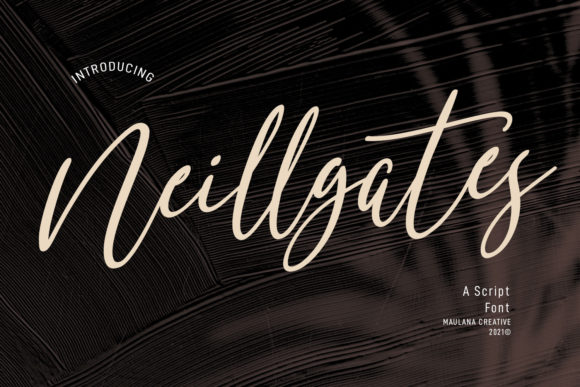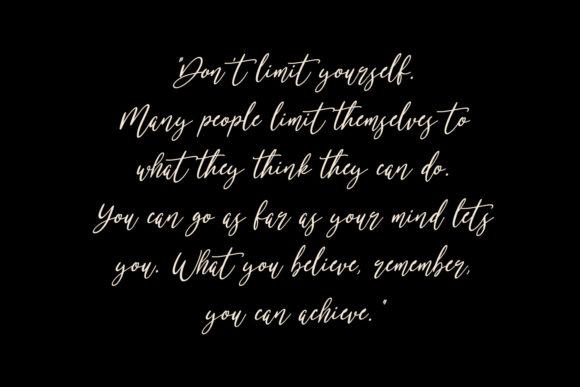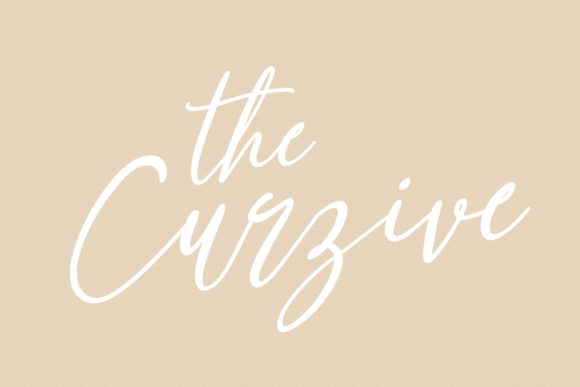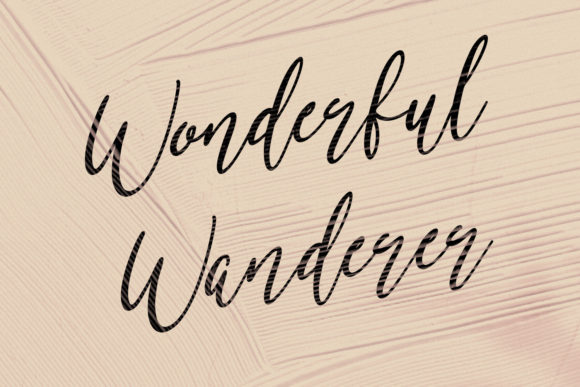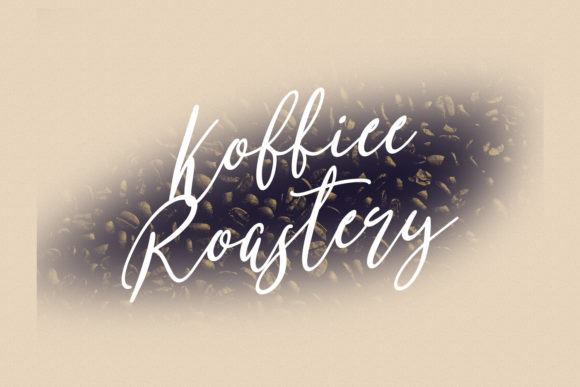
Neillgates Script Font
About Neillgates Script Font
Neillgates Script is an elegant script font with a contemporary atmosphere and impeccable form, inspired by timeless classic calligraphy. Not too thin and not too thick, balanced and varied, this font was designed to enhance the beauty of your projects.